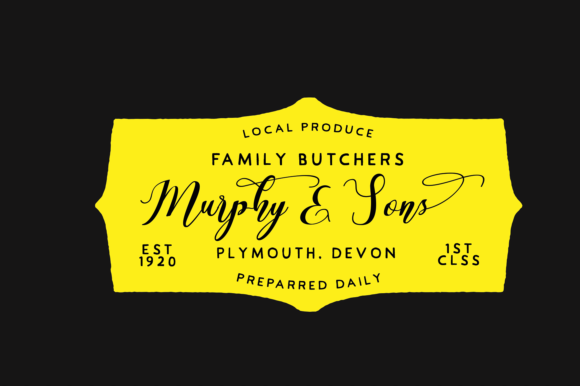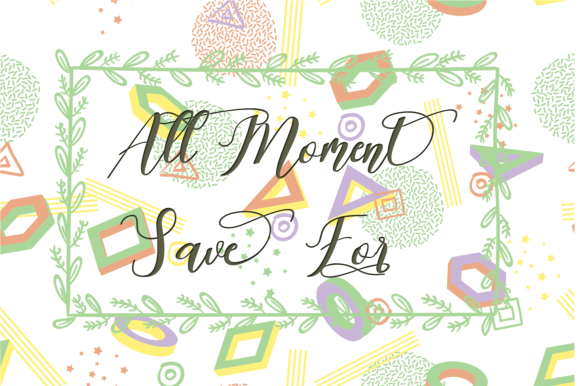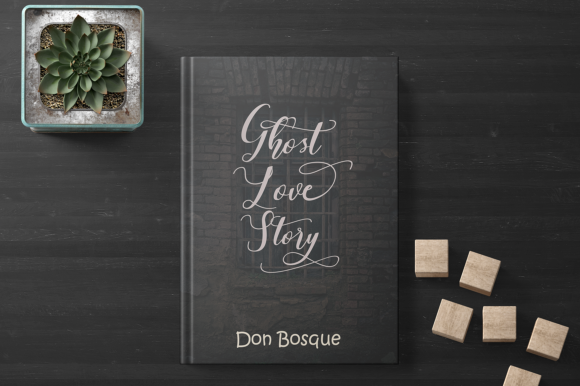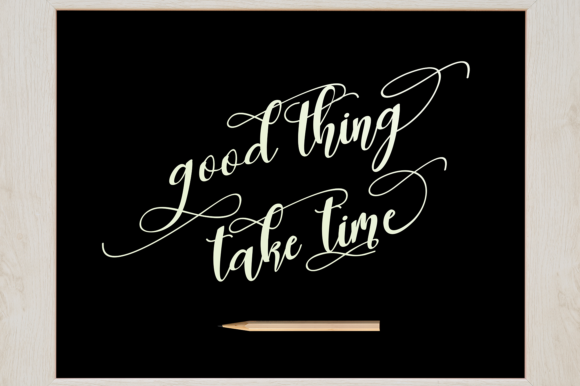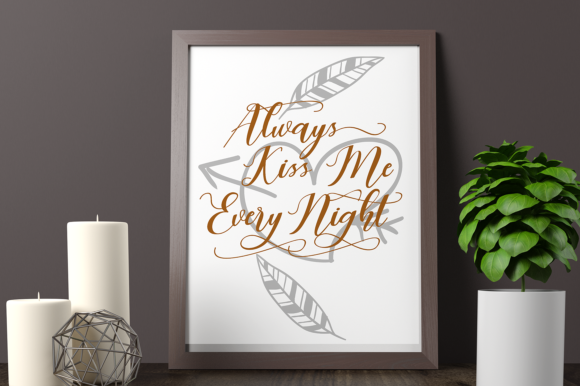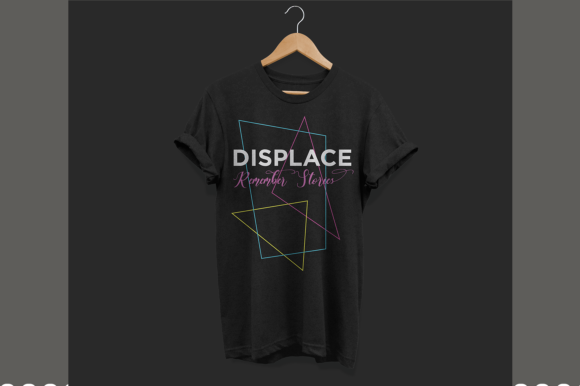
Introduction to Latte Coffee Font
As you sit down with your favorite coffee, surrounded by scattered papers and design notes, you know that’s when the creative magic happens. The perfect cup of coffee fuels your imagination, and the sound of the coffee shop’s ambiance becomes your symphony of inspiration. And that’s exactly when the idea hits you – you need a font that’s as unique and captivating as the moment itself.
Enter the Latte Coffee Font, a modern calligraphy font that’s sure to elevate your design projects to the next level. With its trendy, natural style, this font is perfect for wedding invitations, birthdays, logos, headlines, and much more! Whether you’re a seasoned designer or a creative enthusiast, the Latte Coffee Font is a valuable resource that will add a touch of sophistication to your high-quality designs.
Key Features of Latte Coffee Font
- High-quality design: Latte Coffee Font is a premium font designed for creative projects, offering a unique and sophisticated look.
- Transparent background: This font features a transparent background, making it ideal for use on a variety of backgrounds and designs.
- Large character set: Latte Coffee Font includes a large character set, including uppercase and lowercase letters, numbers, and punctuation marks.
- High-resolution design: The font is designed at 300 DPI, making it suitable for use in high-resolution designs and prints.
- Perfect for design projects: Latte Coffee Font is a versatile design resource, ideal for use in a range of creative projects, from branding and advertising to packaging and editorial design.
Honest Review: Latte Coffee Font
I recently stumbled upon the Latte Coffee Font while searching for a high-quality design resource for a creative project. As a designer, I was excited to give it a try.
- ✨ High-quality design: The font is crisp, clean, and visually appealing.
- ✨ Versatile: The transparent background makes it easy to use on various design surfaces.
- ⚠️ Limited font styles: The font only comes in a few styles, which may limit its use in certain creative projects.
- ⚠️ Not ideal for large text: The font may not be the best choice for large text or headings due to its relatively small size.
Overall, I was impressed with the Latte Coffee Font and would definitely consider using it in my future design projects. While it may have some limitations, its high-quality design and free download option make it a great resource for designers.
Latte Coffee Font
To get the most out of the Latte Coffee Font, use it in combination with a transparent background to create a cohesive and professional look. Experiment with different font sizes and styles to add depth and visual interest to your designs.
The Latte Coffee Font is perfect for:
- Coffee shop branding and marketing materials
- Food and beverage packaging design